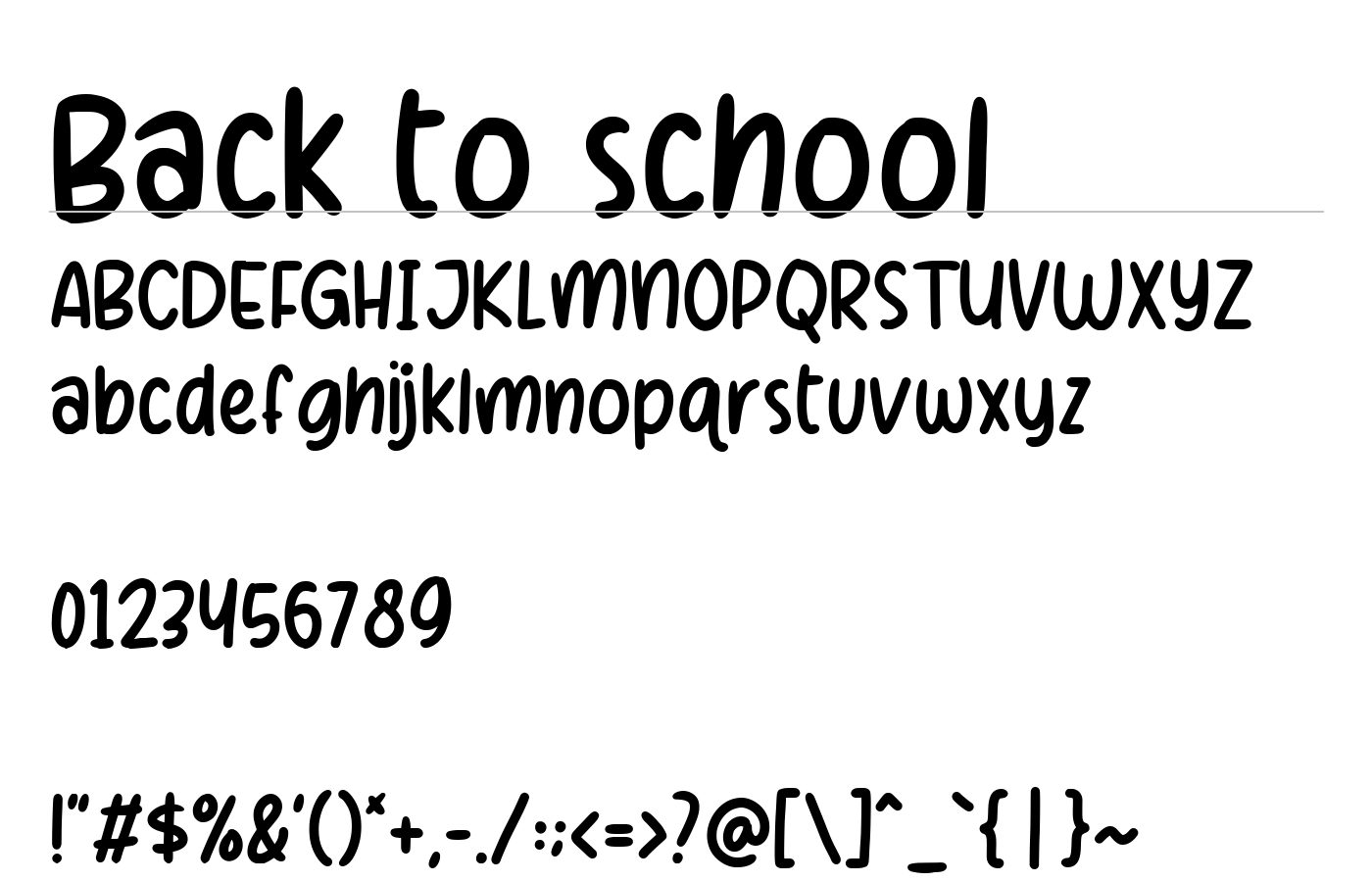
Back to School is a playful, handwritten sans serif font with a casual, friendly feel. Its slightly irregular shapes and moderate x-height create an approachable look that works well for educational materials, children’s books, and informal branding. The font’s lively style and clear readability make it ideal for engaging headlines, fun posters, and websites targeting a young or creative audience.
Back to school Font
About Back to school Font
| Font family | Back to school Font |